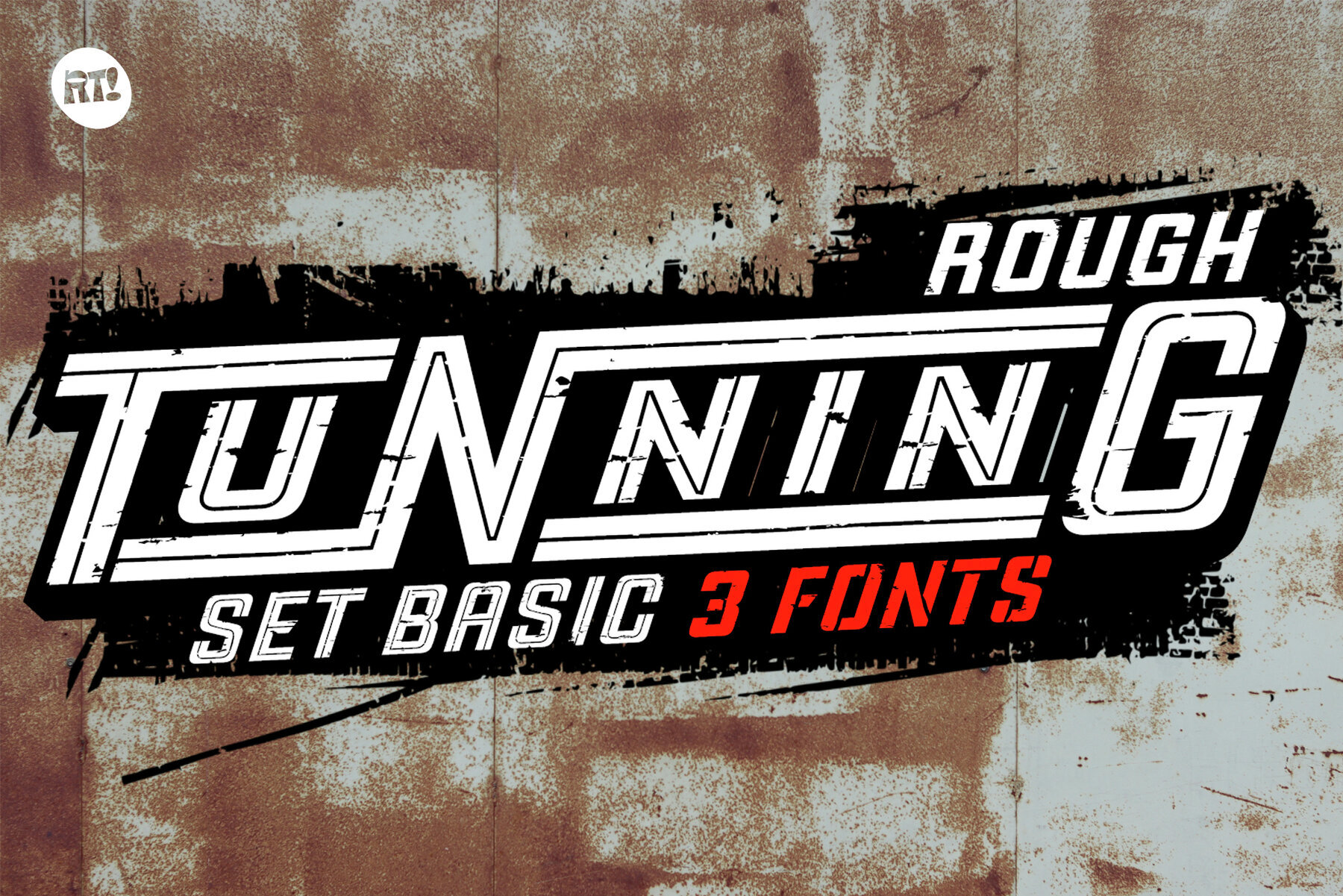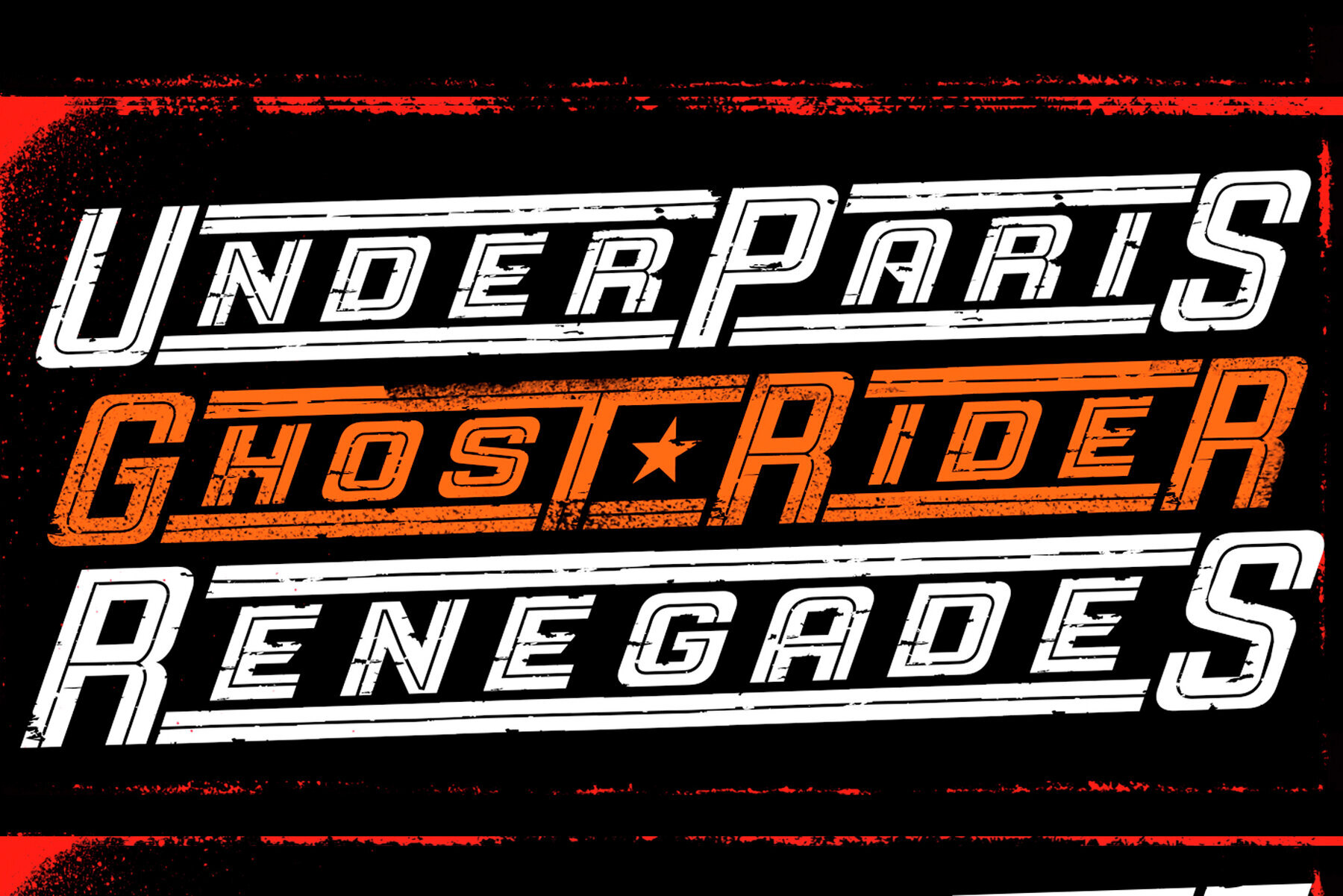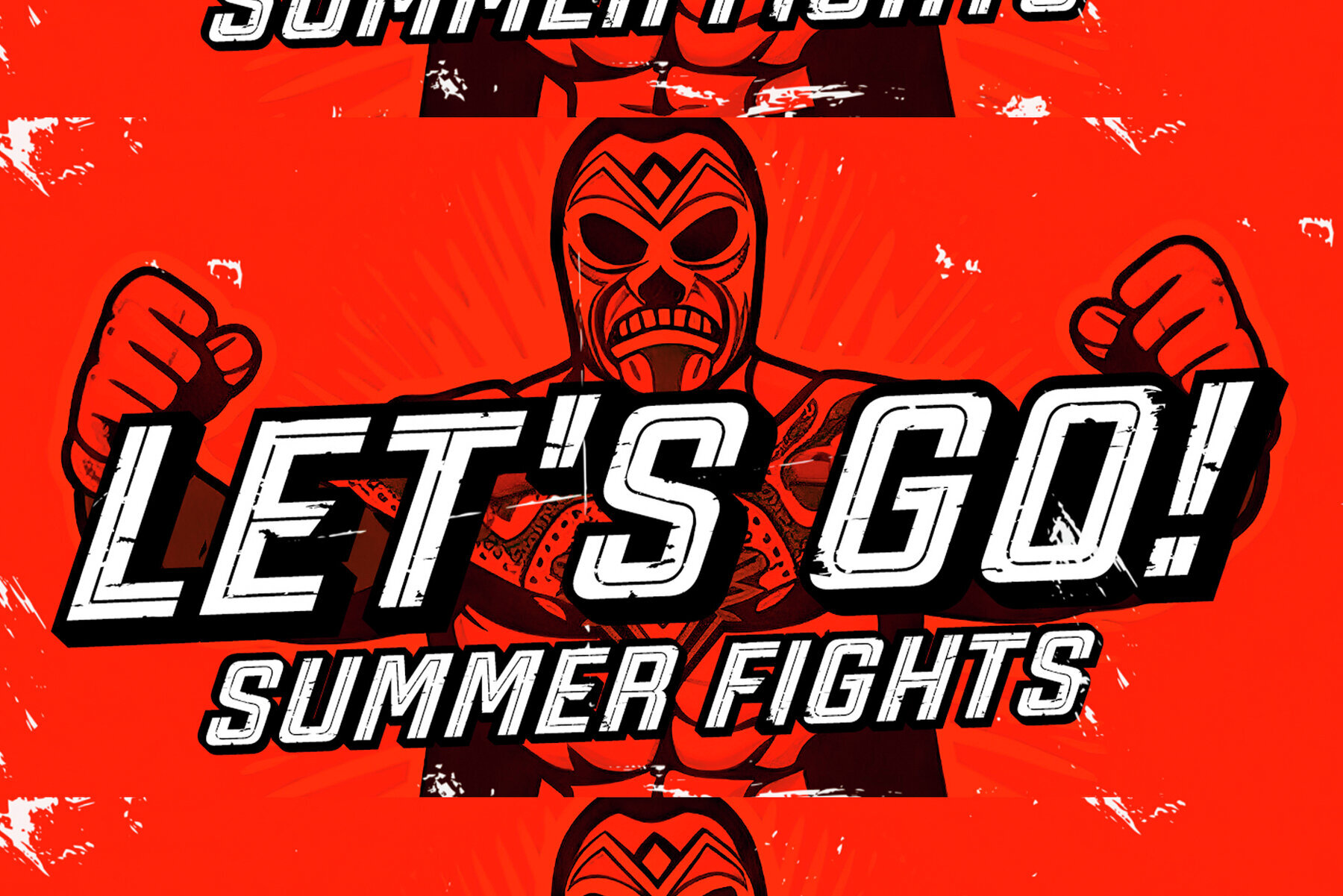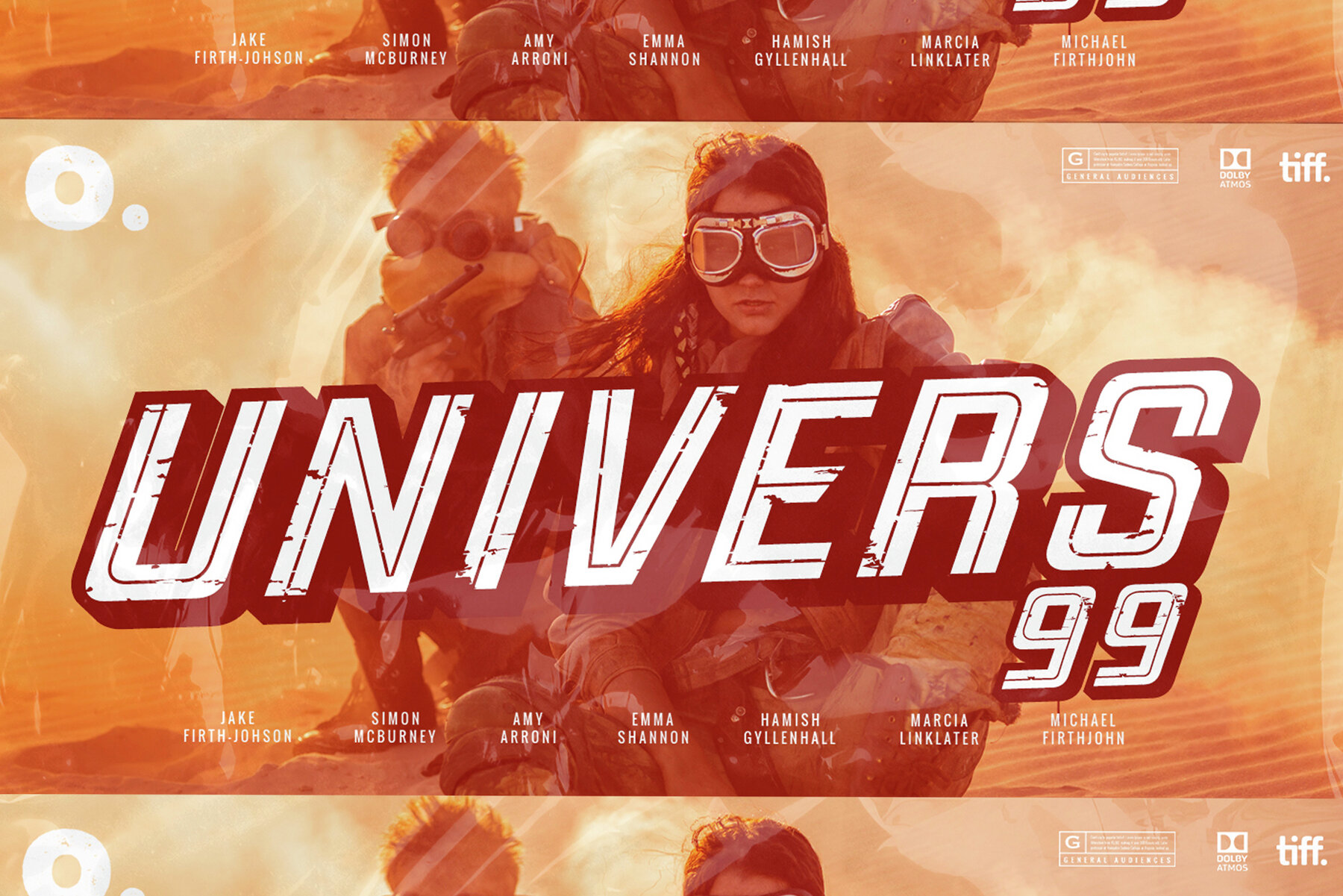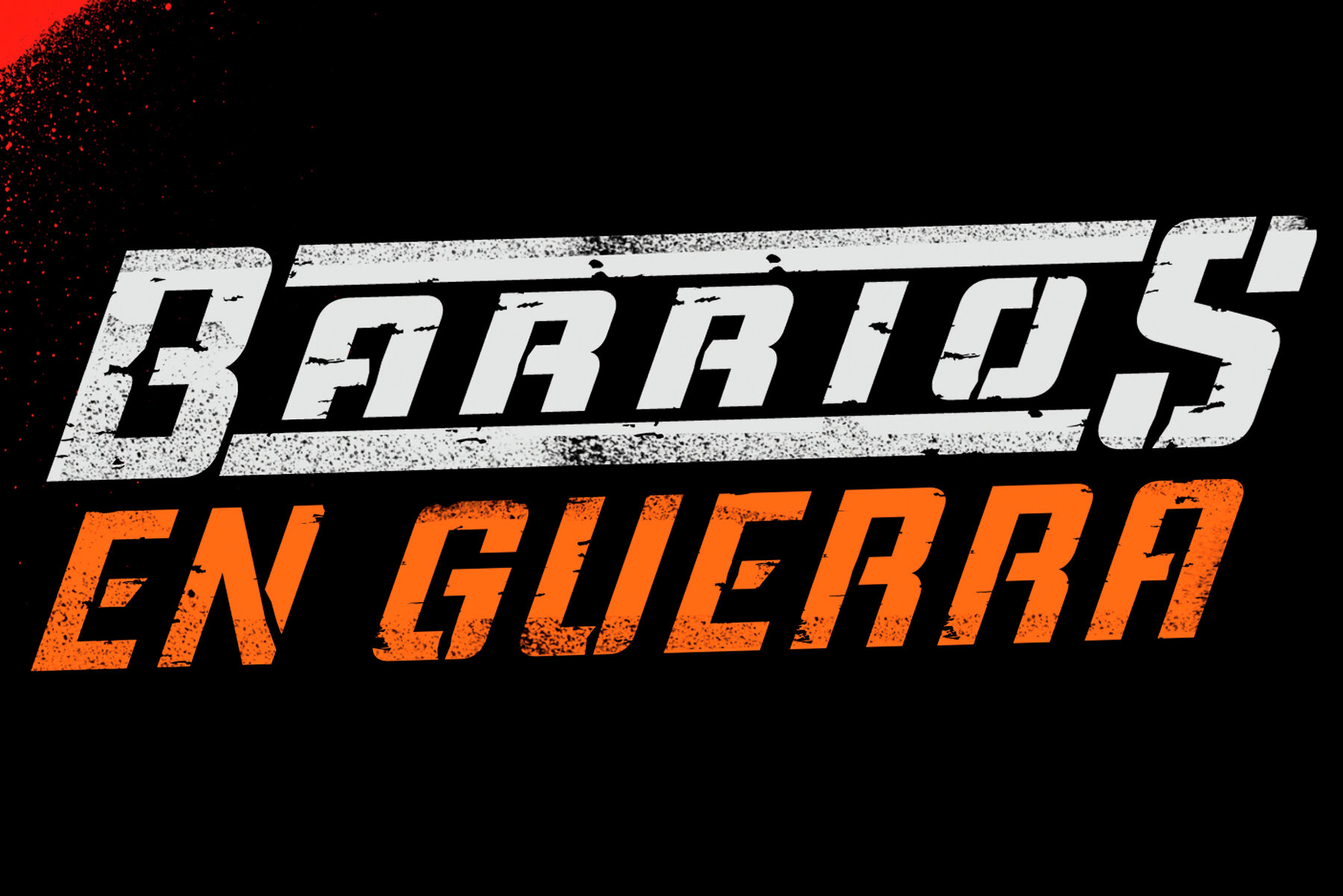
Tunning Rough Font
This stencil font boasts a bold, blocky design with a distressed, grunge aesthetic, making it perfect for urban themes or projects requiring a rugged, industrial feel. Its uppercase letters are ideal for headlines, posters, and any display work where an eye-catching, heavy, and edgy style is desired.